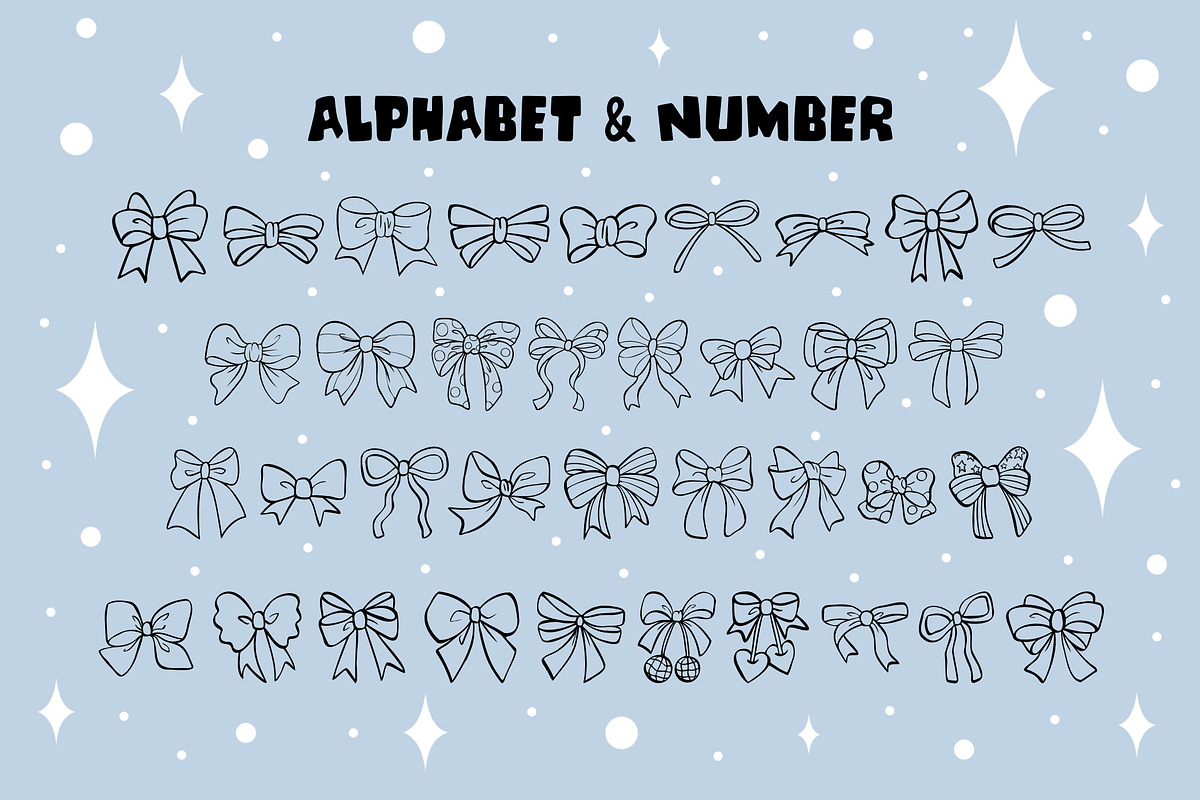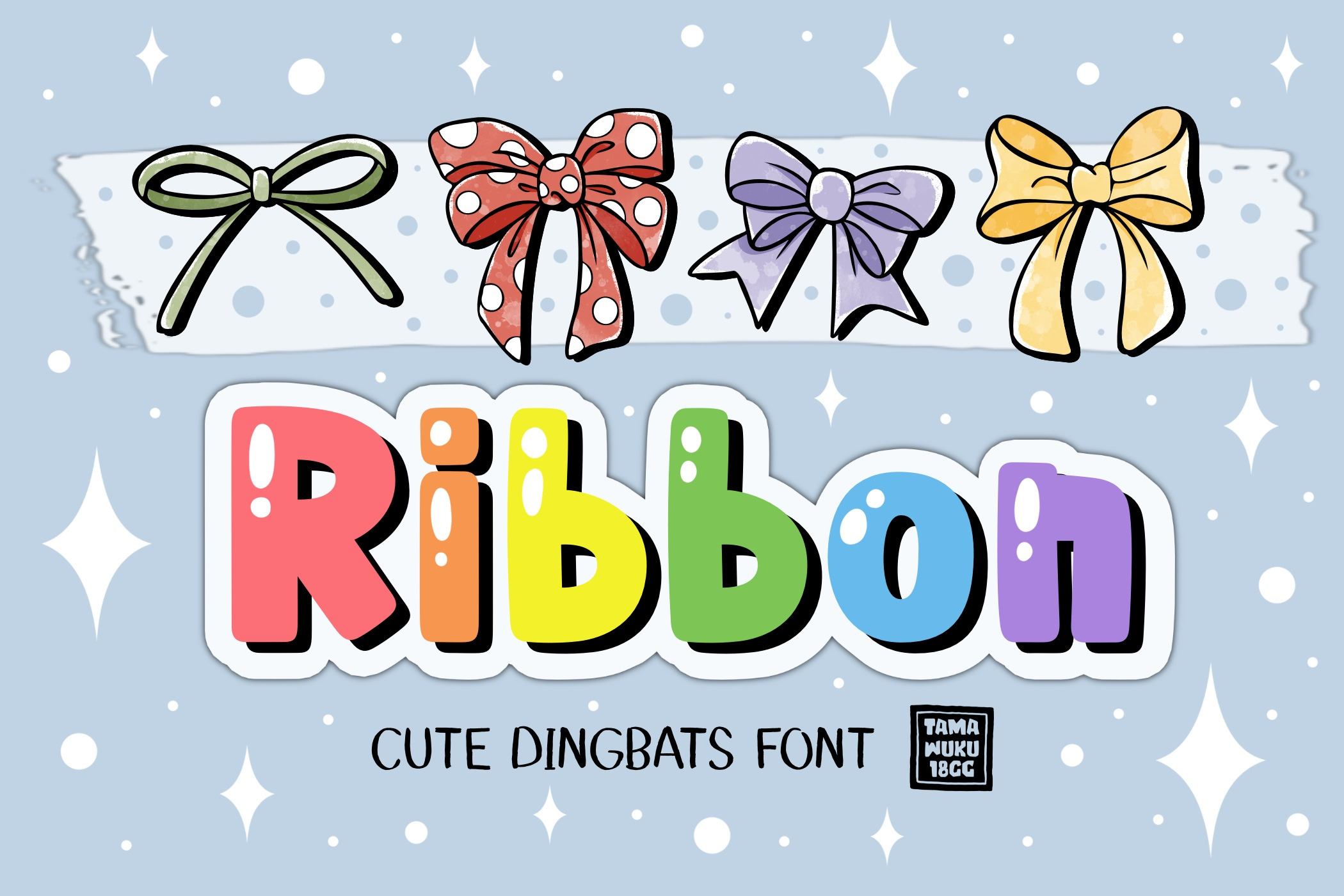
Ribbon OTF Dingbats Font
Ribbon is a cute dingbats font. This font is the perfect fit for all of your logos, wall art, signs, cards, art prints, t-shirts, coloring page, and much more!